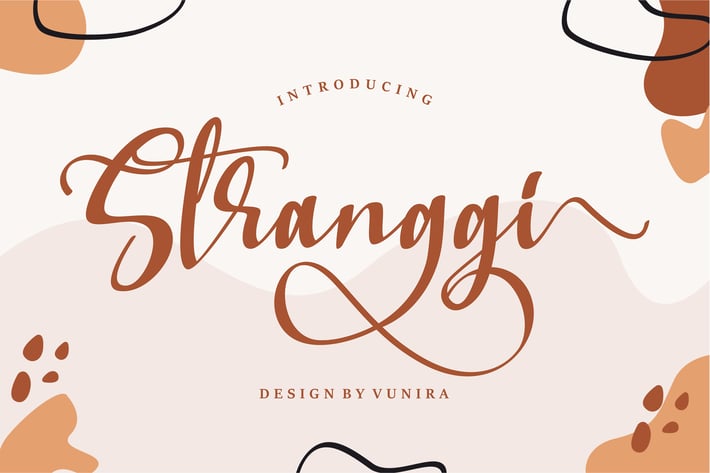
Stranggi | A Stylish Handwritten Font
Stranggi | A Stylish Handwritten Font with a calligraphy style, So beautiful on invitation like greeting cards, branding materials, business cards, quotes, posters, and more!